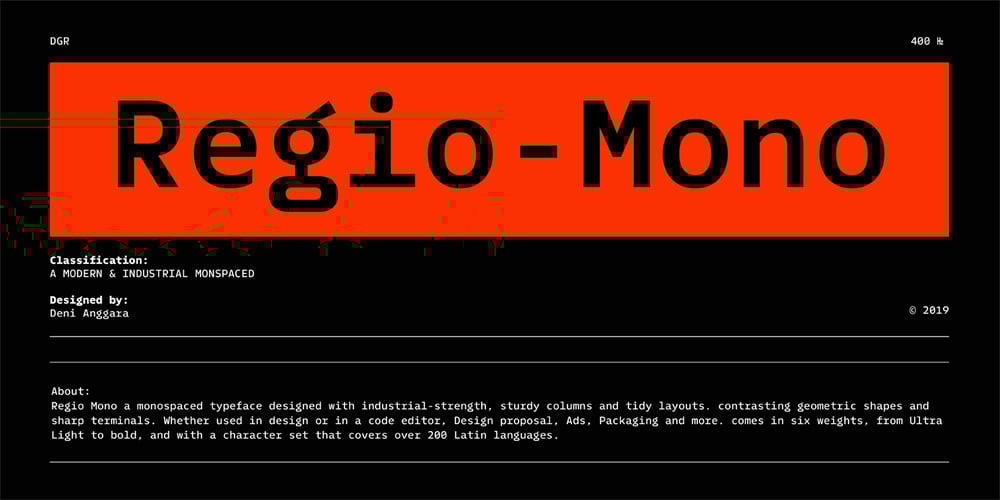
Regio Mono
Regio Mono font
Regio Mono Font Family was designed by Deni Anggara and published by Degarism Studio. Regio Mono contains 7 styles and family package options. Regio Mono is a monospaced typeface designed with industrial-strength, sturdy columns and tidy layouts. contrasting geometric shapes and sharp terminals. Whether used in design or in a code editor, Design proposal, Ads, Packaging and more. Regio Mono comes in six weights, from Ultra Light to Bold, and with a character set that covers over 200 Latin languages.